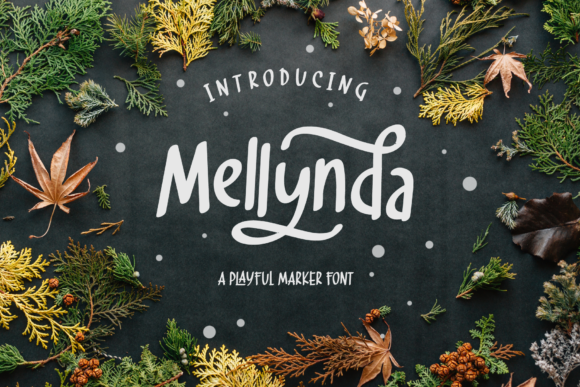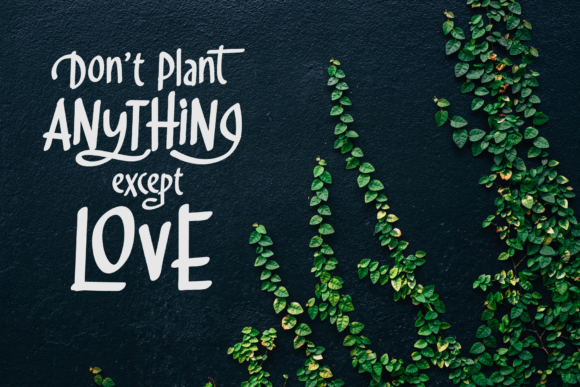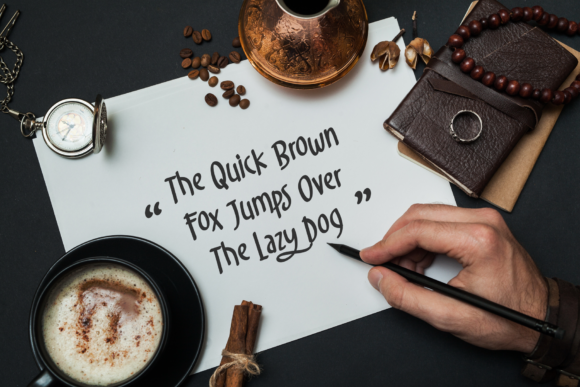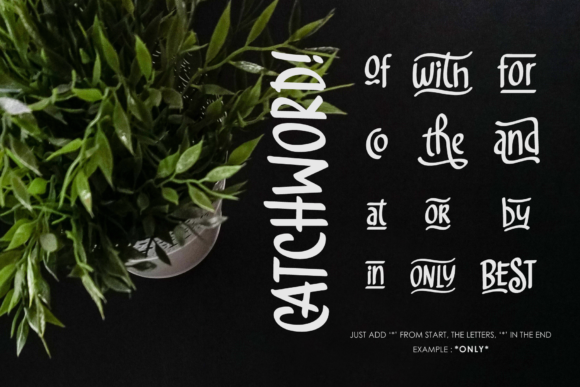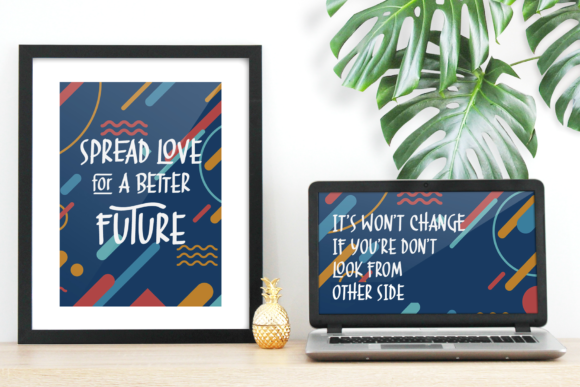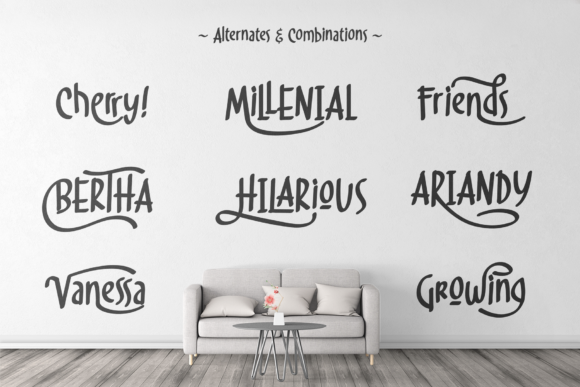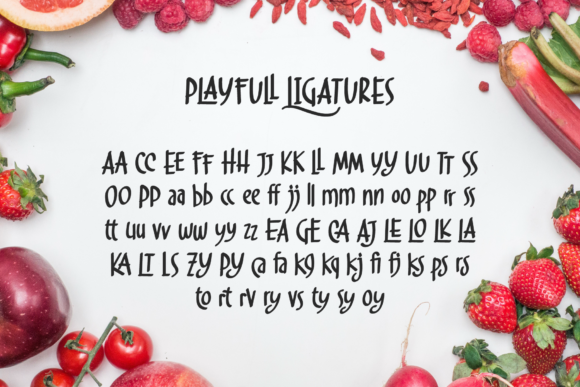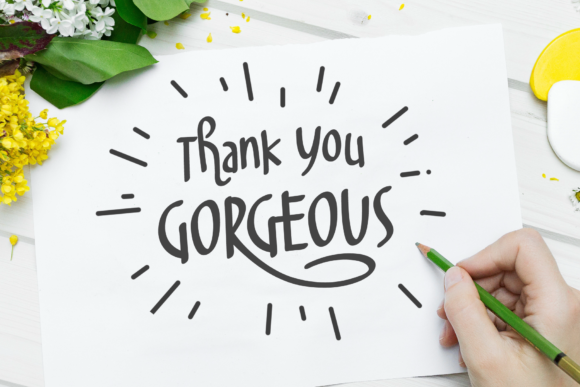
Mellynda Script Font
About Mellynda Script Font
The Mellynda is a playful marker font. It has a childhood feel which gives it a fun touch, while keeping an elegant style.